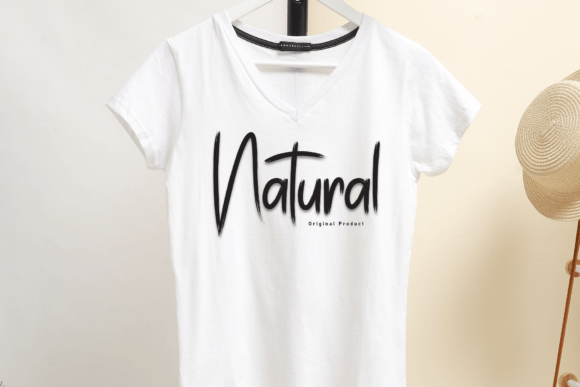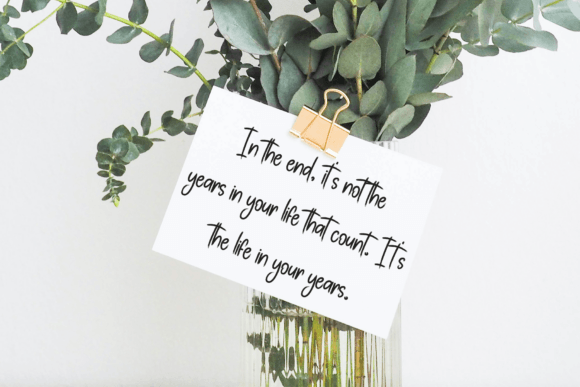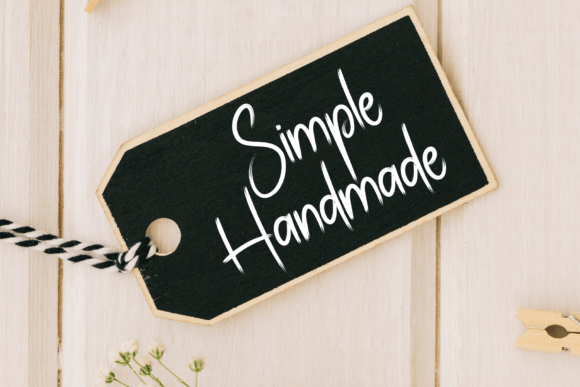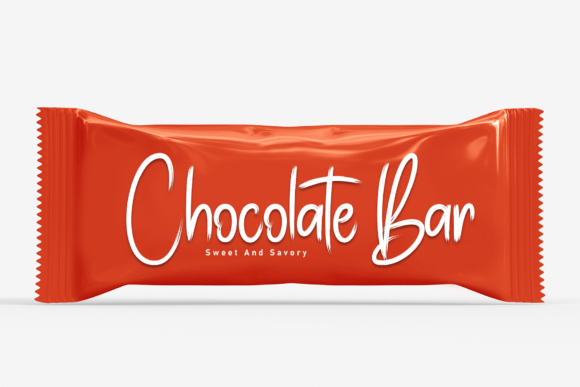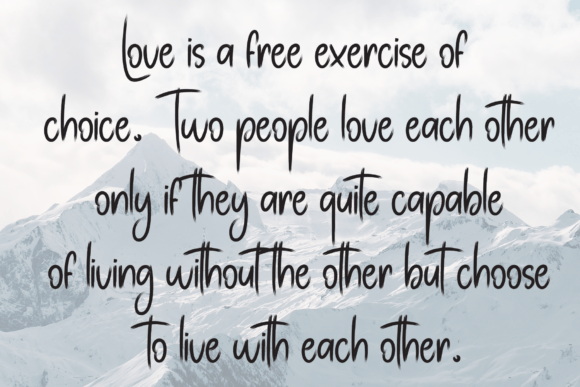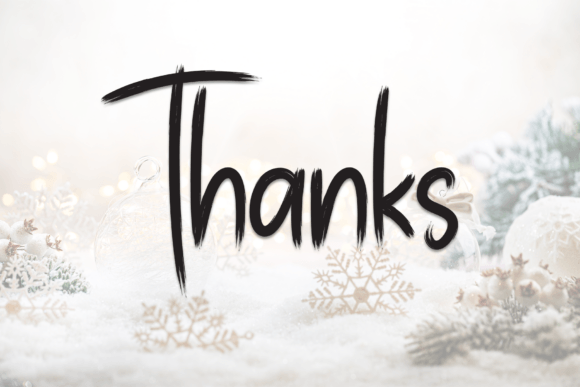
Introducing Christmas Wednesday Font: The Perfect Addition to Your Design Collection
Are you looking for a font that can add a touch of whimsy and playfulness to your designs? Look no further than Christmas Wednesday Font, a delightfully handwritten display font that is sure to bring a burst of joy to your creations. With its gentle warmth and friendliness, this font is perfect for crafting enchanting wedding invitations, heartfelt cards, and more.
The Charm of Christmas Wednesday Font
Christmas Wednesday Font is a sweetly designed handwritten font that carries a unique charm in each stroke. Its adorable, fun-loving nature makes it the perfect choice for designers and crafters who want to add an element of joy to their designs. Whether you’re creating wedding invitations, birthday cards, or social media graphics, this font is sure to make your designs stand out.
One of the standout features of Christmas Wednesday Font is its ability to evoke a sense of warmth and friendliness. This makes it the perfect choice for crafting enchanting wedding invitations that set the tone for a joyful and celebratory occasion. The font’s playful charm also makes it ideal for creating heartfelt cards that are sure to bring a smile to the recipient’s face.
Add a Burst of Joy to Your Designs
Christmas Wednesday Font is more than just a font – it’s a design element that can add a burst of joy to your creations. Its whimsical nature makes it perfect for designs that need a touch of playfulness and fun. Whether you’re creating social media graphics, blog posts, or marketing materials, this font is sure to make your designs more engaging and attention-grabbing.
Key Features of Christmas Wednesday Font
• Delightfully handwritten display font
• Gentle warmth and friendliness in each stroke
• Perfect for crafting enchanting wedding invitations and heartfelt cards
• Adorable, fun-loving nature adds an element of joy to any design
• Whimsical and playful charm
Why Choose Christmas Wednesday Font?
There are many fonts to choose from, but Christmas Wednesday Font stands out from the rest. Here are just a few reasons why:
• Unique and eye-catching design
• Easy to read and understand
• Versatile and can be used for a variety of design projects
• High-quality font that is optimized for use in digital and print designs
Tips for Using Christmas Wednesday Font
Here are a few tips for getting the most out of Christmas Wednesday Font:
• Use it for headlines and titles to add a touch of whimsy and playfulness
• Pair it with other fonts to create a unique and eye-catching design
• Experiment with different colors and textures to add depth and interest to your design
• Use it to create custom graphics and illustrations